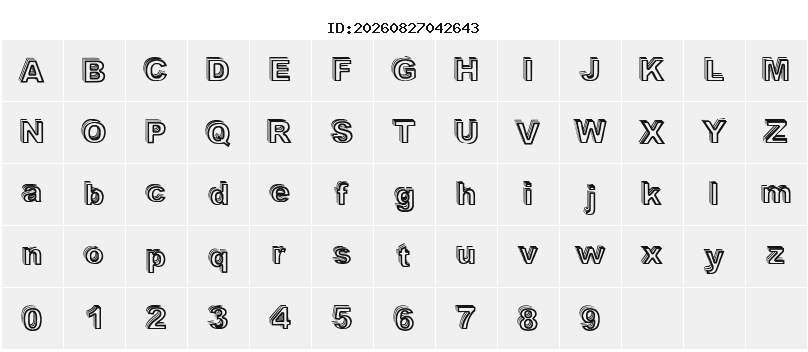
• Font Name: 687-CAI978
• Full Font Name: 687-CAI978
• Version: Version 1.00 December 9, 1998, initial release
About 687-CAI978.ttf
687-CAI978.ttf is a modern, elegant sans-serif font designed for ultimate readability and visual harmony. Perfect for branding, headlines, web design, and print materials.